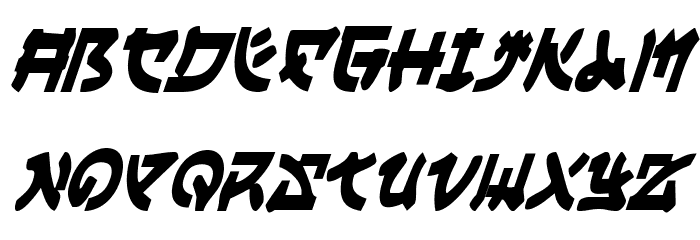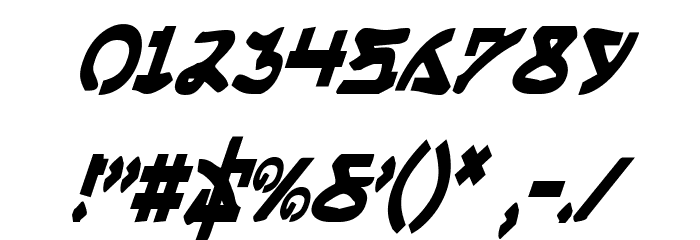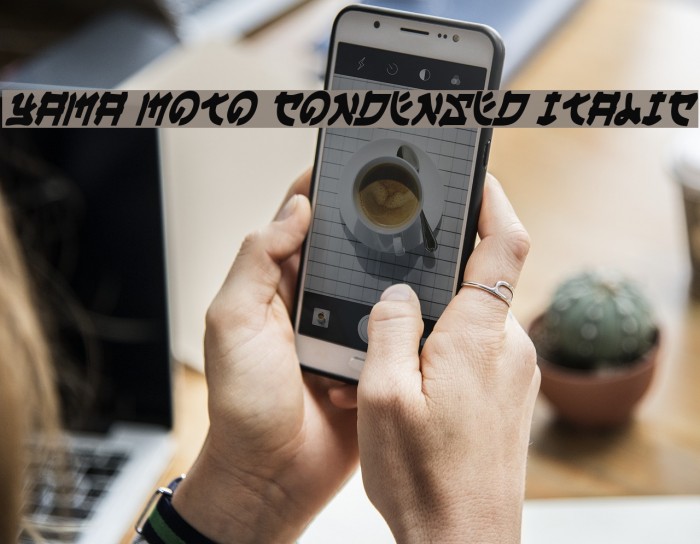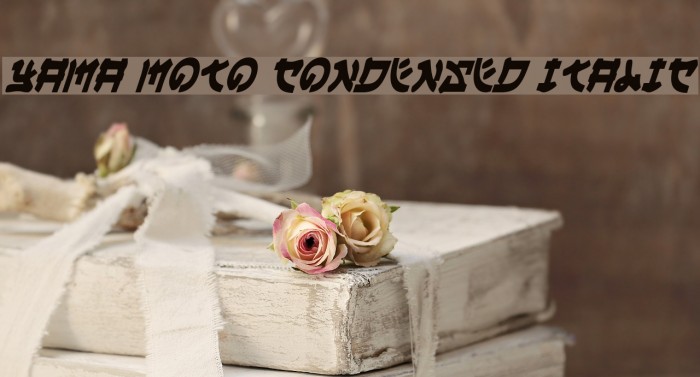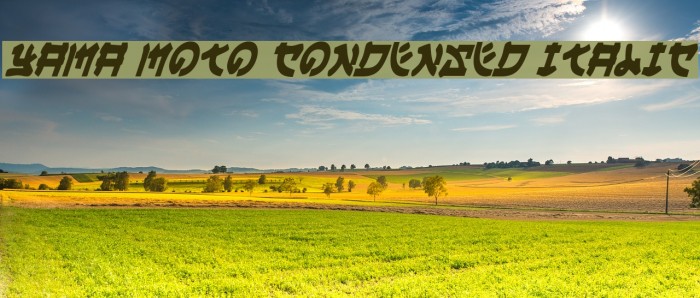
Yama Moto Condensed Italic Font
This font features a bold and dynamic style with a condensed form and italic slant, giving it a sense of movement and energy. The characters are uniquely designed with sharp angles and a futuristic aesthetic, making it stand out. The uppercase and lowercase letters maintain a consistent style, while the numbers and special characters complement the overall design. The font's boldness and condensed nature make it suitable for impactful headlines and attention-grabbing text.
A bold, condensed, and italic font with a futuristic and dynamic style.
- Proposed Projects: Ideal for use in modern branding, sports team logos, video game titles, and sci-fi themed projects.
- Character Spacing: Tight